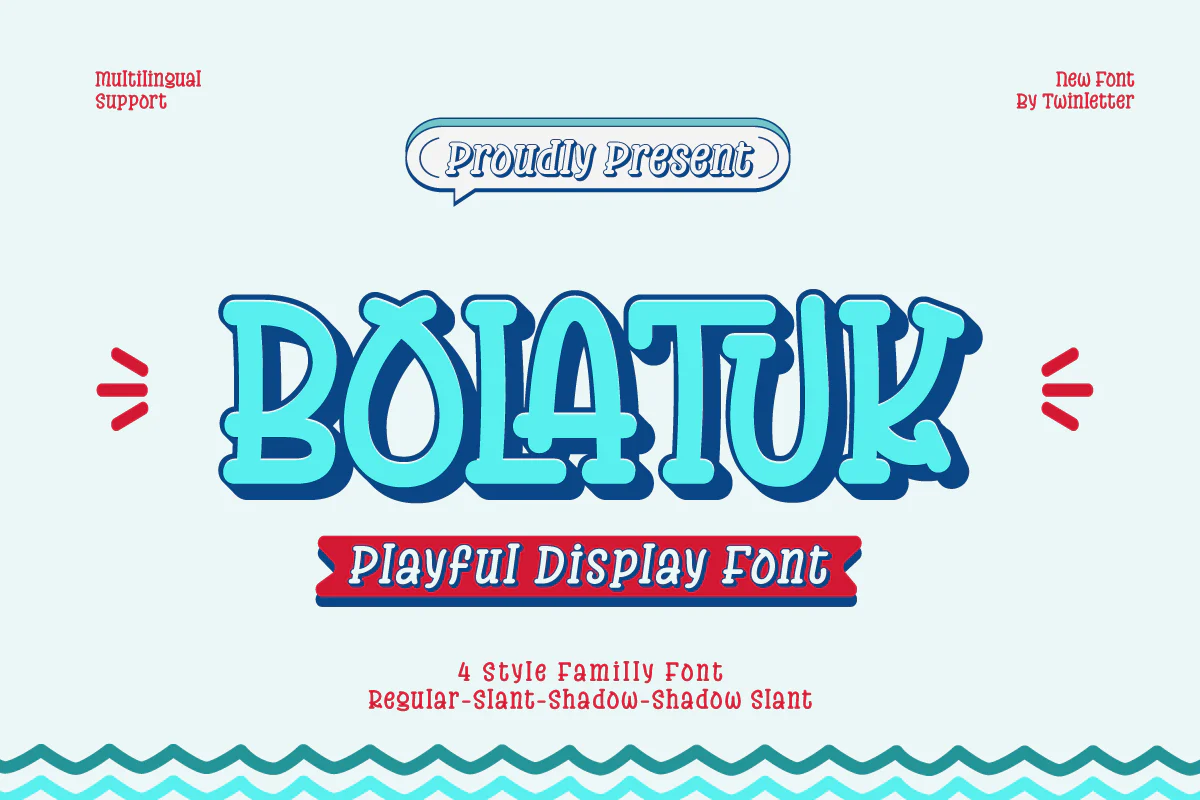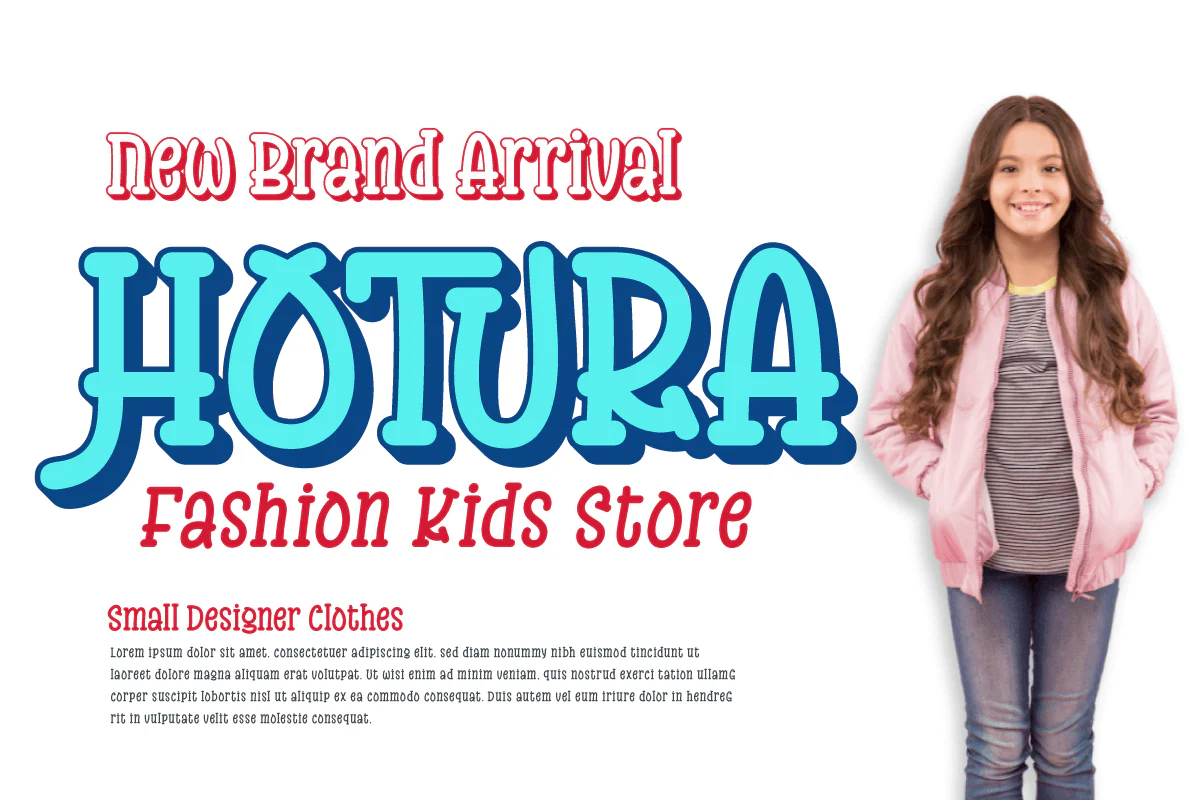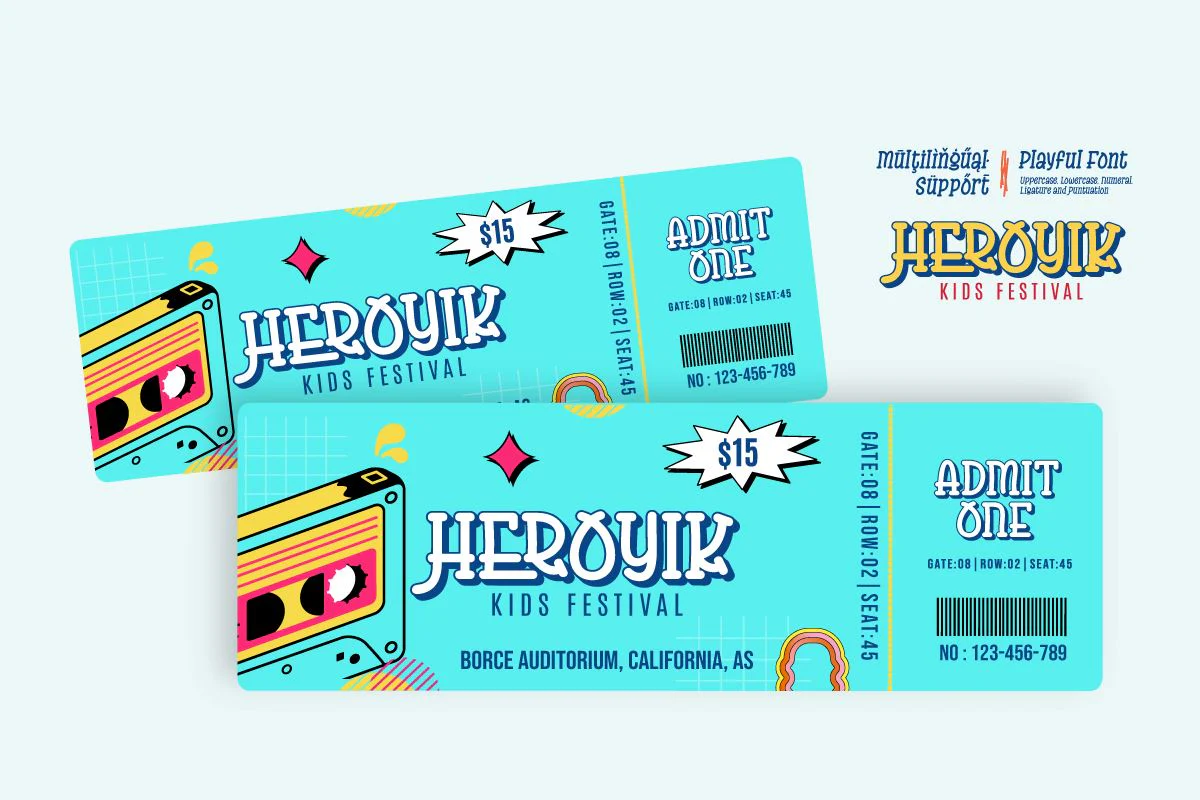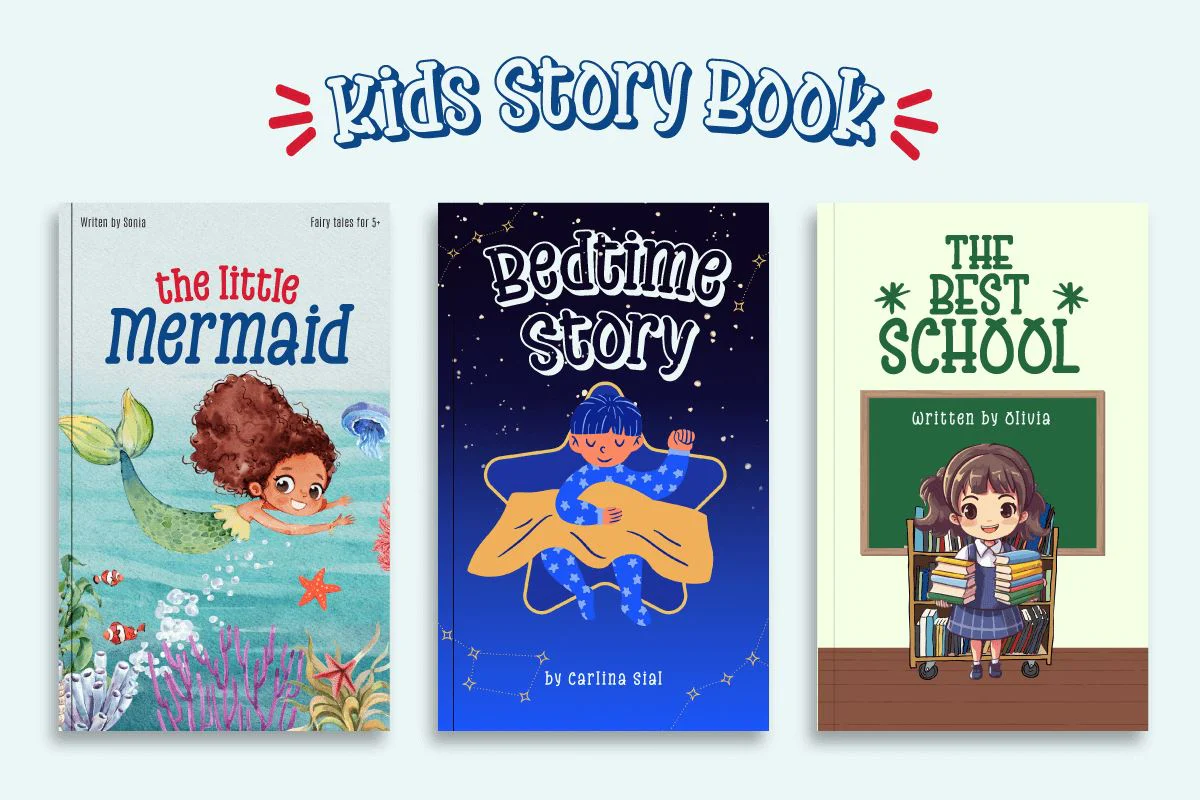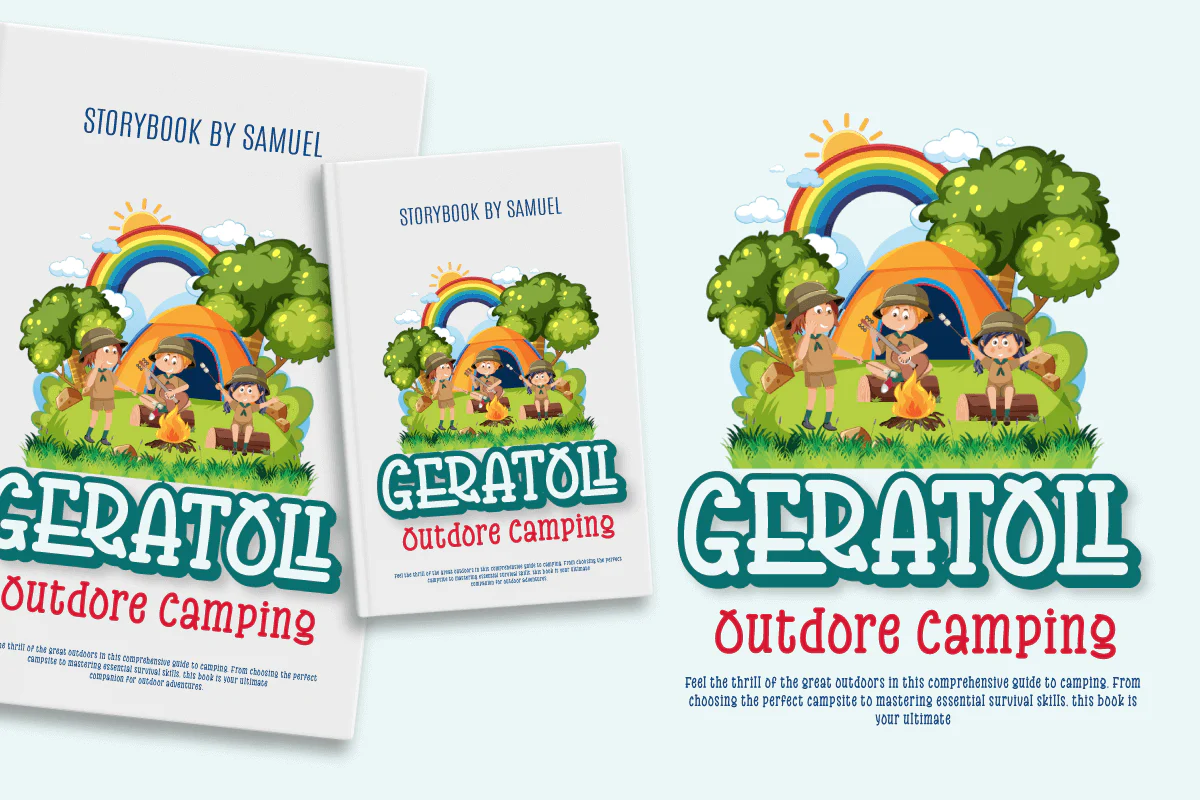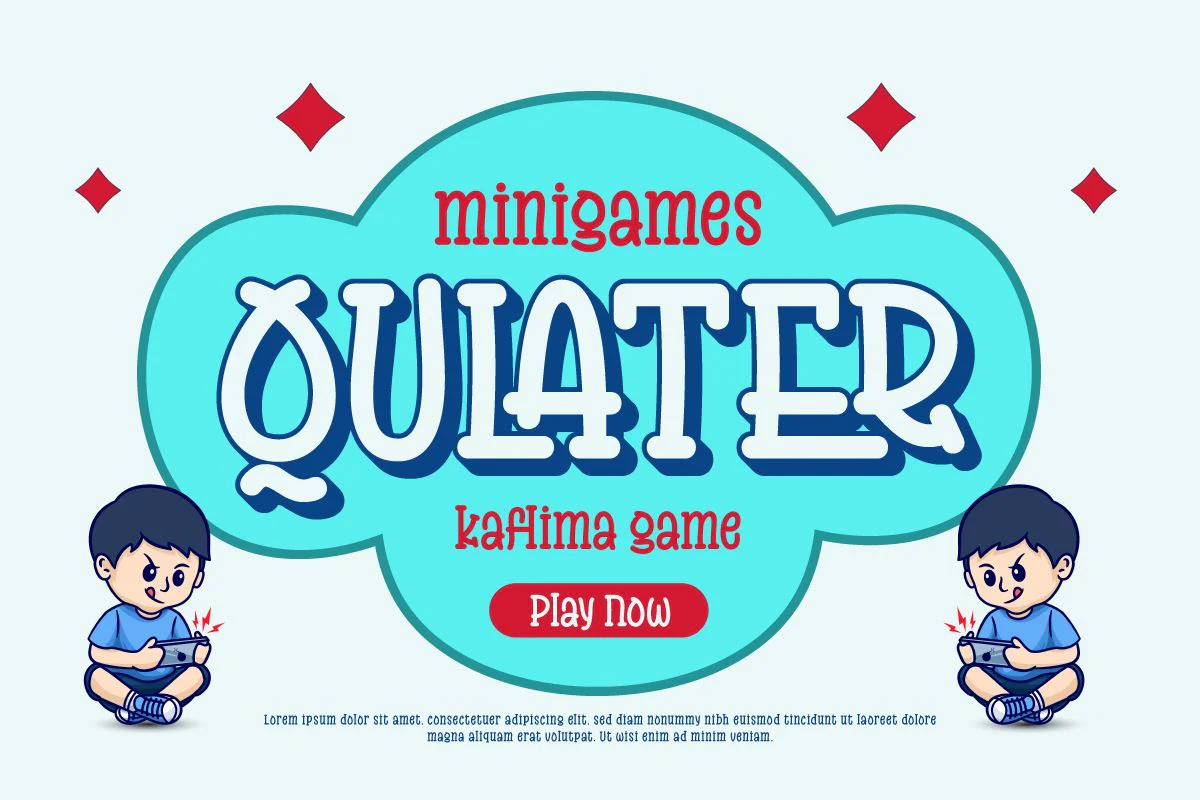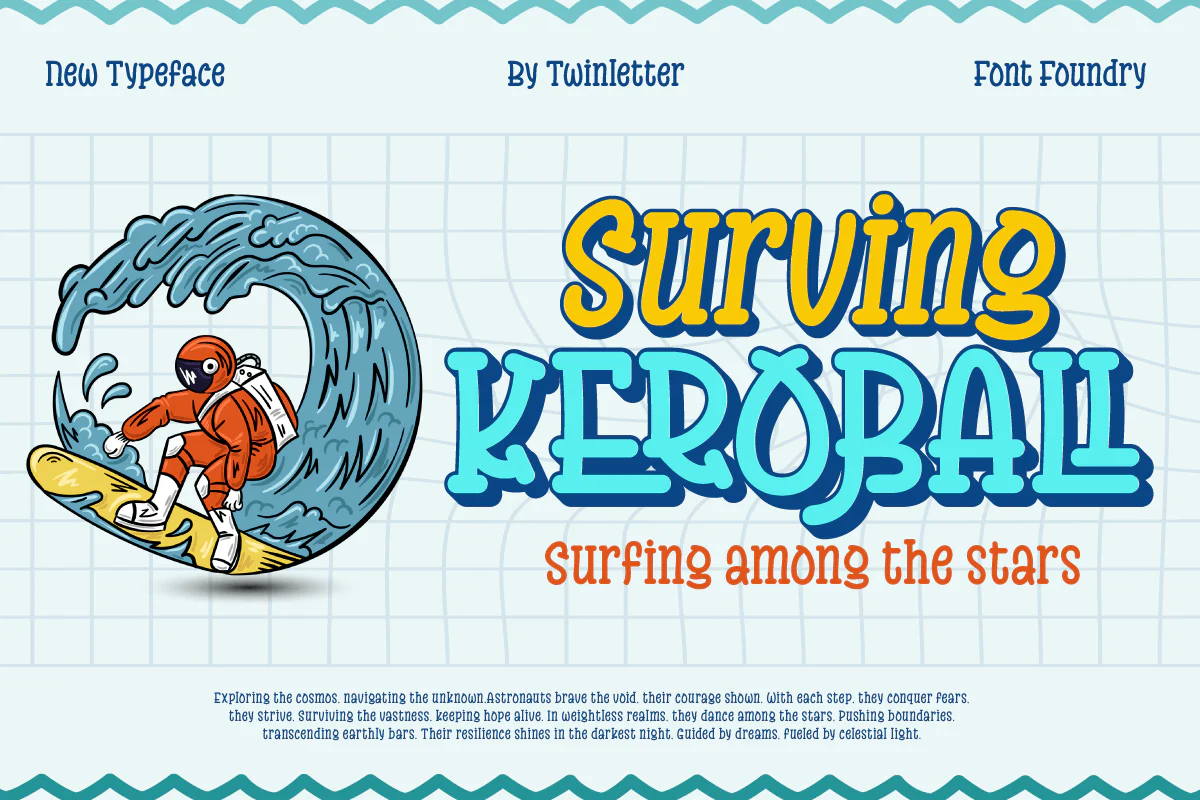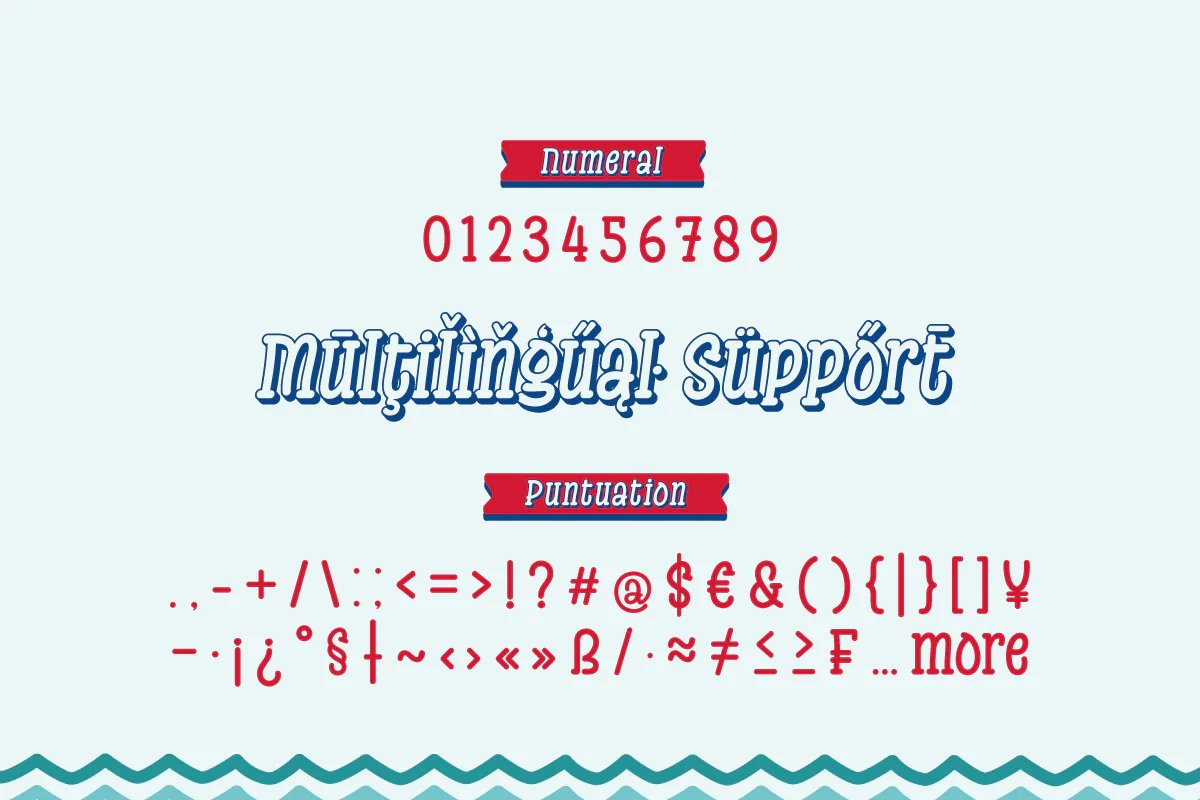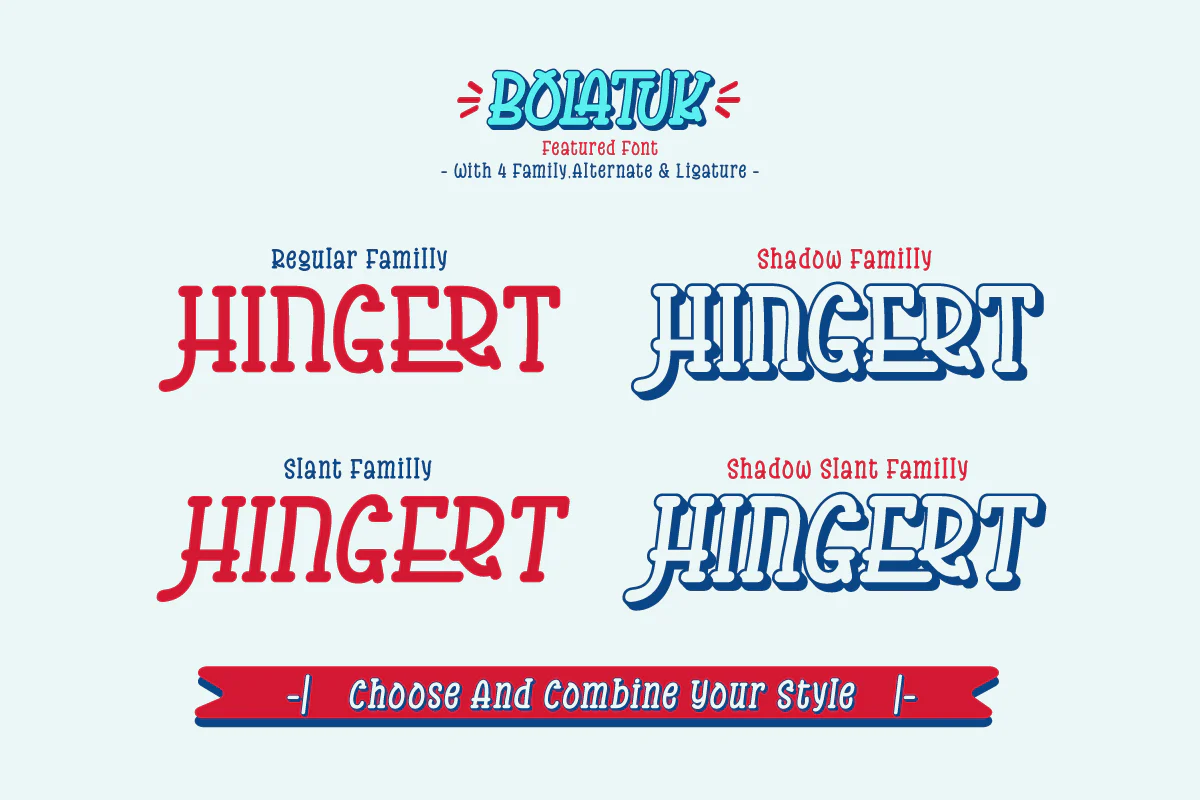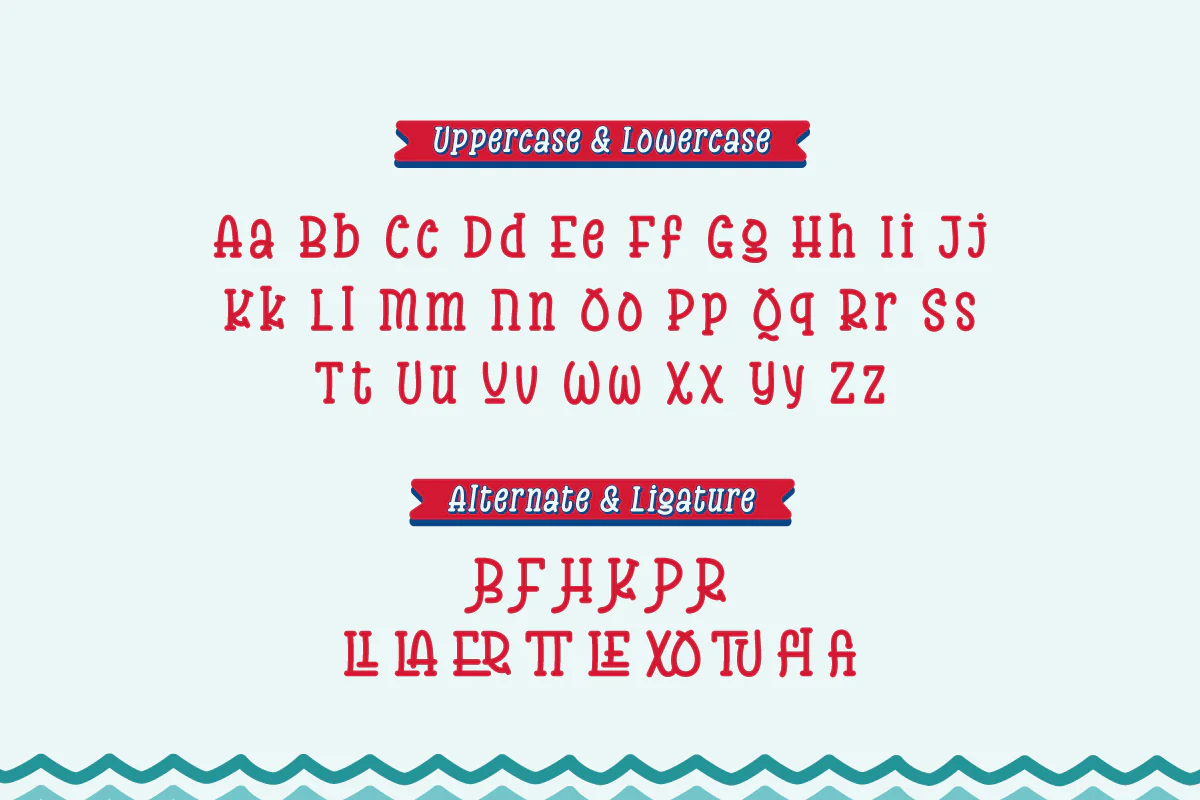
Bolatuk - Playful Display Font
Unleash your creativity with Bolatuk, a playful display font bursting with whimsy and charm. Each letter is a burst of color and joy, infusing your designs with a sense of playfulness and fun. Ideal for children's books, posters, or cheerful branding, Bolatuk adds a spark of imagination to every project, turning ordinary into extraordinary.